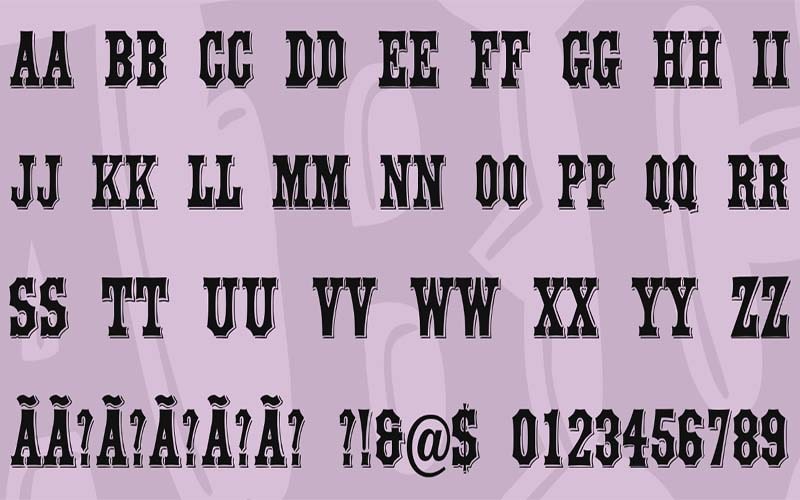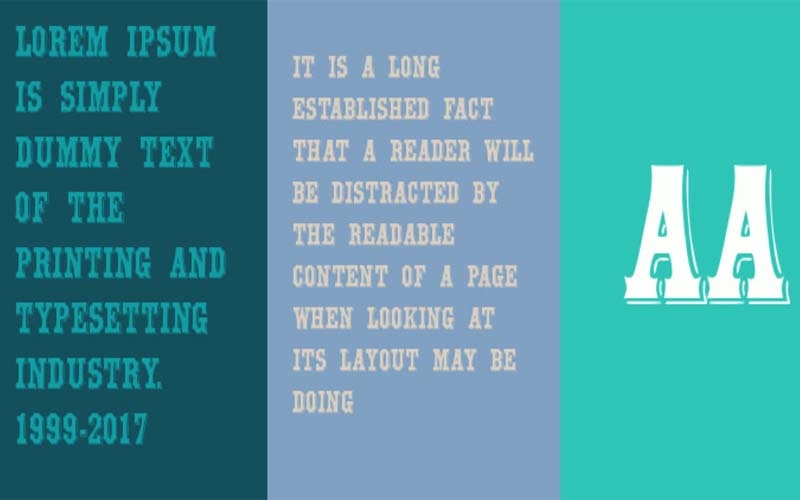
Introducing a new 3D, Display font family called Montague Font. Dieter Steffmann took charge of designing this font and released it with the help of Typographer Mediengestaltung in 2000.
This various font family has come in a single weight including Regular. It contains 184 characters with 1000 units per em and it also supports multiple international languages.
These languages are Malagasy, Maltese, Norwegian, Occitan, Piedmontese, Polish, Portuguese, Potawatomi, Quechua, Romanian, Rotokas, Russian, Shona, Afrikaans, Albanian, Aromanian, and much more.
Later on, this excellent family is perfect for posters, shopping bags, comic covers, game titles, printing on cards, unique emblems, game graphics, special event cards, as well as many other awesome places.
Montague Font
| Font Name: | Montague Font |
| Style: | Display, Typeface |
| Font Designer: | Dieter Steffmann |
This Font presents its exact look and helps make your design more elegant and beautiful. Because many designers are already working with this typeface in their regular projects.